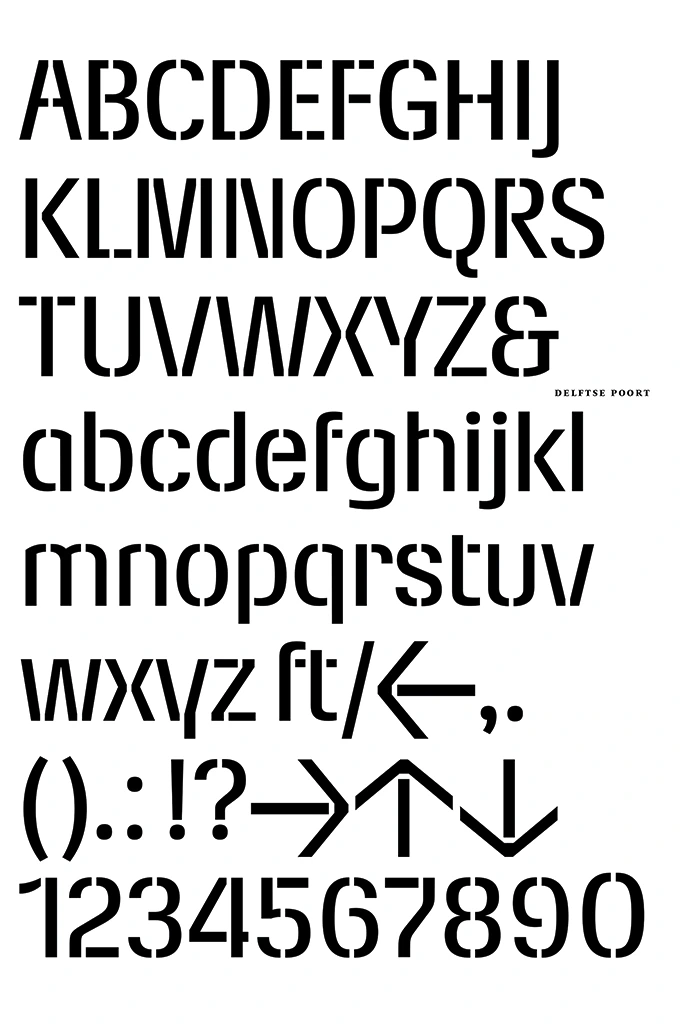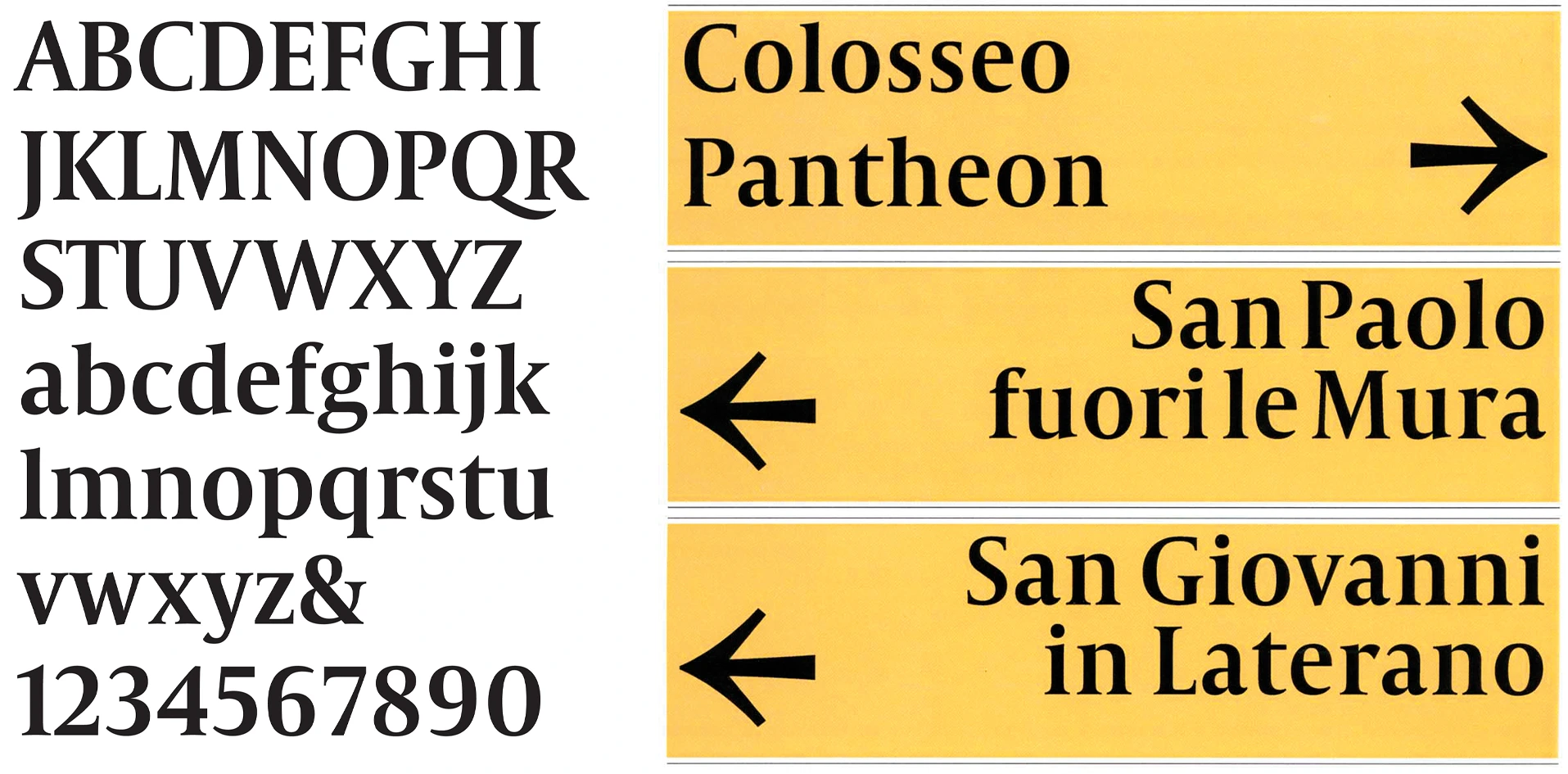
The elegance of the curve
Luisa Baeta on Gerard Unger and his visionary ideas
Gerard Unger, a Dutch graphic and type designer, inspired thousands of typographers to dive deep into research and dare to experiment. The designer of Brazilian descent, Luisa Baeta, was lucky to meet him in person and soak up the knowledge firsthand.
Luisa started out as a graphic designer but eventually joined the University of Reading to study type design. Here she met Gerhard Unger, a thoughtful mentor, who was lecturing in her course. The master navigated her in search of her own style, encouraged the wildest ideas and even suggested a name for her typeface.
Since then, Luisa fell in love with typography and spent a few years working as a type designer in an agency. Later a winding path led the young designer to New York, where she got back to graphic design, now with a feeling of a good type. Currently, Luisa is a member of the Type Directors Club and an active part of the female-run and female-oriented platform ‘Alphabettes’, helping women in design to raise their voices. In the article, Luisa commemorates Gegard Unger and reveals the unknown sides of the famous type designer.
(1942–2018)
A pioneer of digital typesetting, worked at the junction of analog and digital eras. As a designer, he created logos and corporate identities, stamps and coins, editorials for magazines and newspapers. But he was best known for his typefaces, including renowned Demos, Praxis and Swift.
Gerard Unger was also devoted to lecturing, teaching young minds in Gerrit Rietveld Academie, the University of Reading and the University of Leiden throughout his life.
Gerard Unger receiving his PhD from Leiden University on September 5, 2013. © Mariët Sieffers.
Observing the world
I met Gerard Unger, the incredible type designer and our guest teacher, when I started my master’s degree classes at Reading University. He was a special person, able to put together a thoughtful and systematic approach to theory and a free approach to observation. Type design is a discipline that very often runs the risk of being very narrow and focused, as it makes you go deeper and deeper into details—and get stuck between zooming out to see the paragraph and then jumping back to the smallest serif.
Unger was constantly bringing things from outside the realm of design. One day he was observing birds. He noted the way their wings curved as they flew and admired the elegance of this curve, the speed in it, and all at once started to think how he could draw a typeface that repeats this nature-driven form. He found the shape and created a new masterpiece, the typeface named ‘Swift’ after the bird that inspired him. Gerard Unger was able to take something out of the visual world and translate it into a legible, unique, and impactful design.
Gerard Unger delivering a speech at the ATypI 2011 in Reykjavik.
Delftse Poort Typeface, created by Unger for a single office building, Delftse Poort. © Nationale Nederlanden Insurance Group.
The art of experimentation
I've heard Unger complaining about being distracted by letterforms. He said it was the curse of being a type designer: you start noticing typefaces and it slows down your reading. But it doesn't mean a designer should be neutral in typefaces. There is not much space for you to deviate from the shape of letters before they stop being legible, but still enough for an artistic maneuver. That's why we haven't been just looking at the same shapes for the past hundreds of years.
Type design is always about answering an aesthetic brief in a different way while working with the same essential skeletons. The result can be very legible and functional while being highly innovative. This is something that Gerard Unger has definitely accomplished.
He had a very free and very encouraging approach to experimentation. He once shared that he knows exactly how far he can go with experimentation and when he is crossing the line where readers will become aware of his experimentation. And knowing all that, the master was going one step over that line on purpose. But of course, he never let art or experimentation speak louder than the text. I’ve adopted this approach and it helped me more than once in my own projects.
Unger’s Capitolium Typeface, designed for wayfinding and information systems for the city of Rome.
Trust the teacher
As a mentor, Gerard Unger was able to understand my ideas before I even articulated them. Back then I was trying to translate fast and messy sketches into a finished typeface, and at the stage of refining my shapes were losing vitality and dynamics. He talked with me a lot about the project and was very encouraging. Finally, he made me feel that my visual pursuit was just as valid as that of all of my colleagues, who had a very historical or research-based approach. Unger even suggested I should name the new typeface ‘The Lion Tamer’ because I was trying to tame a really wild thing.